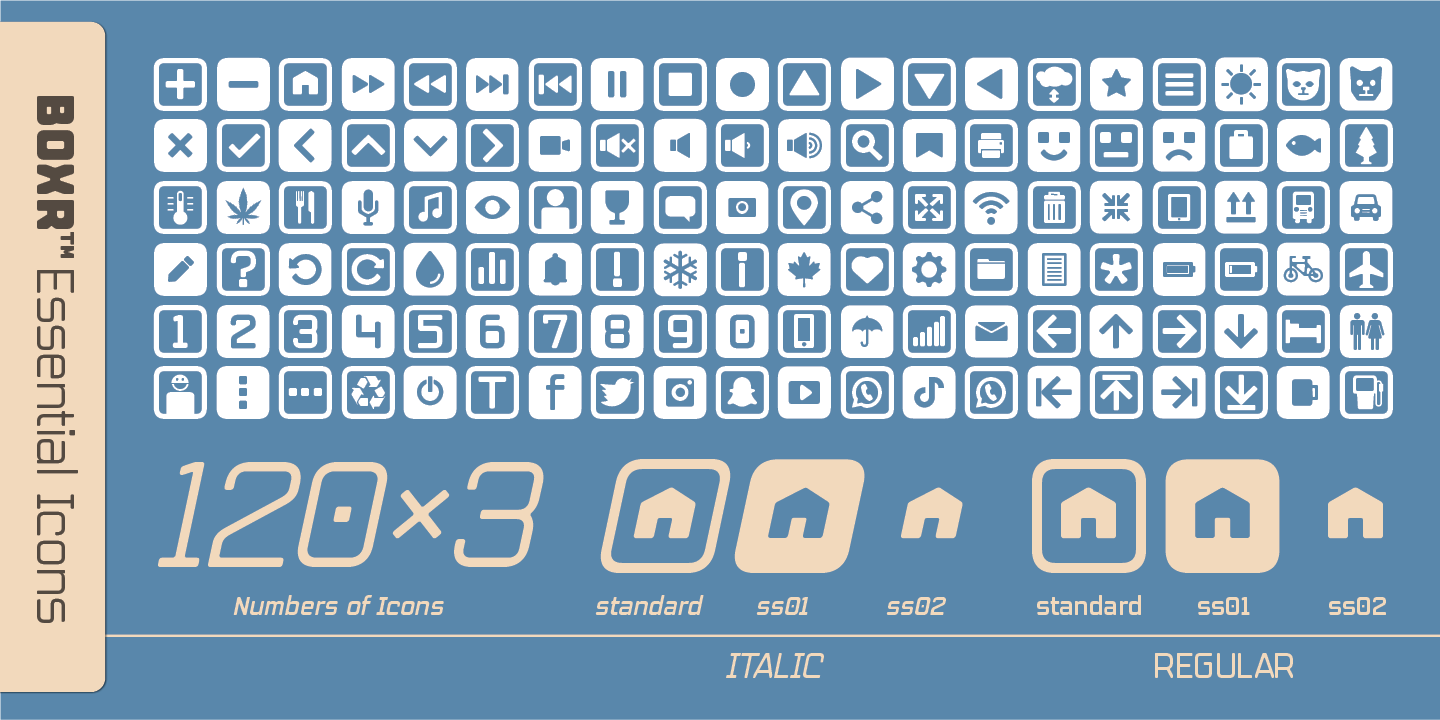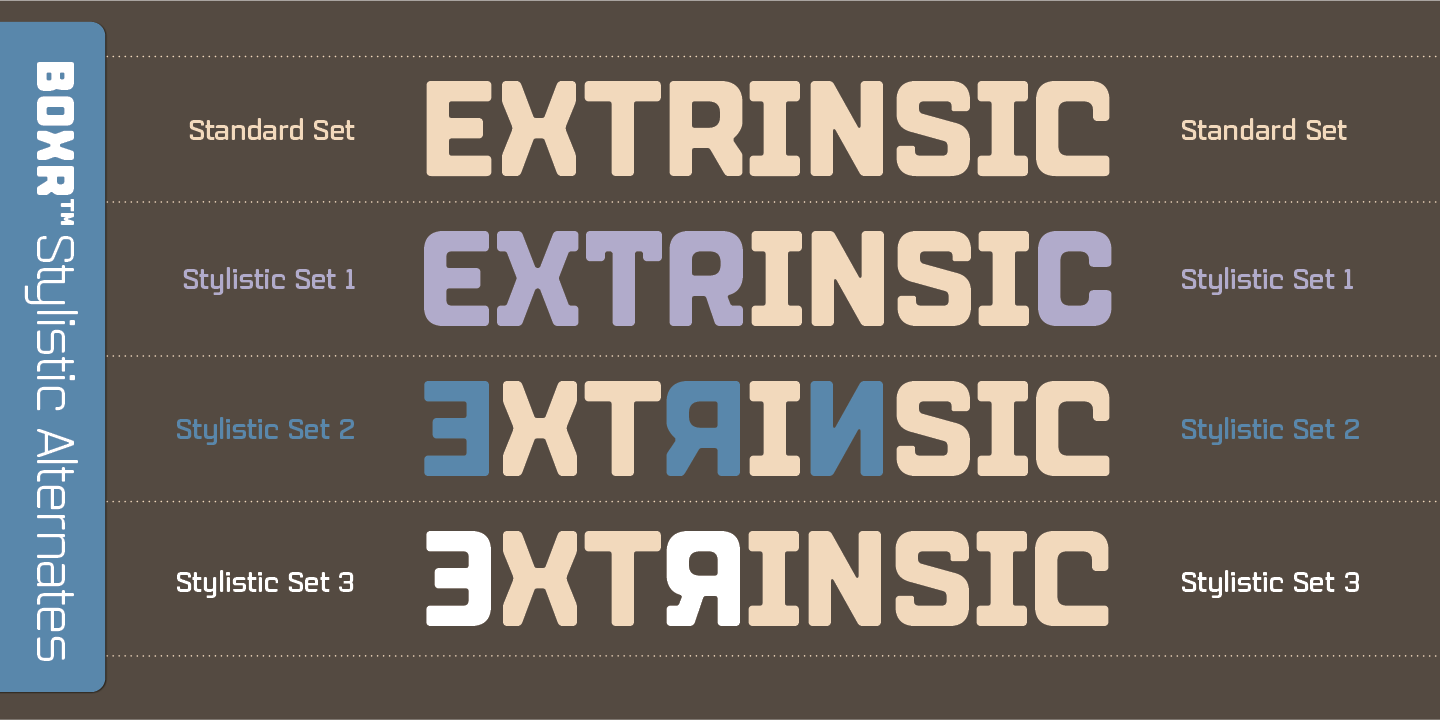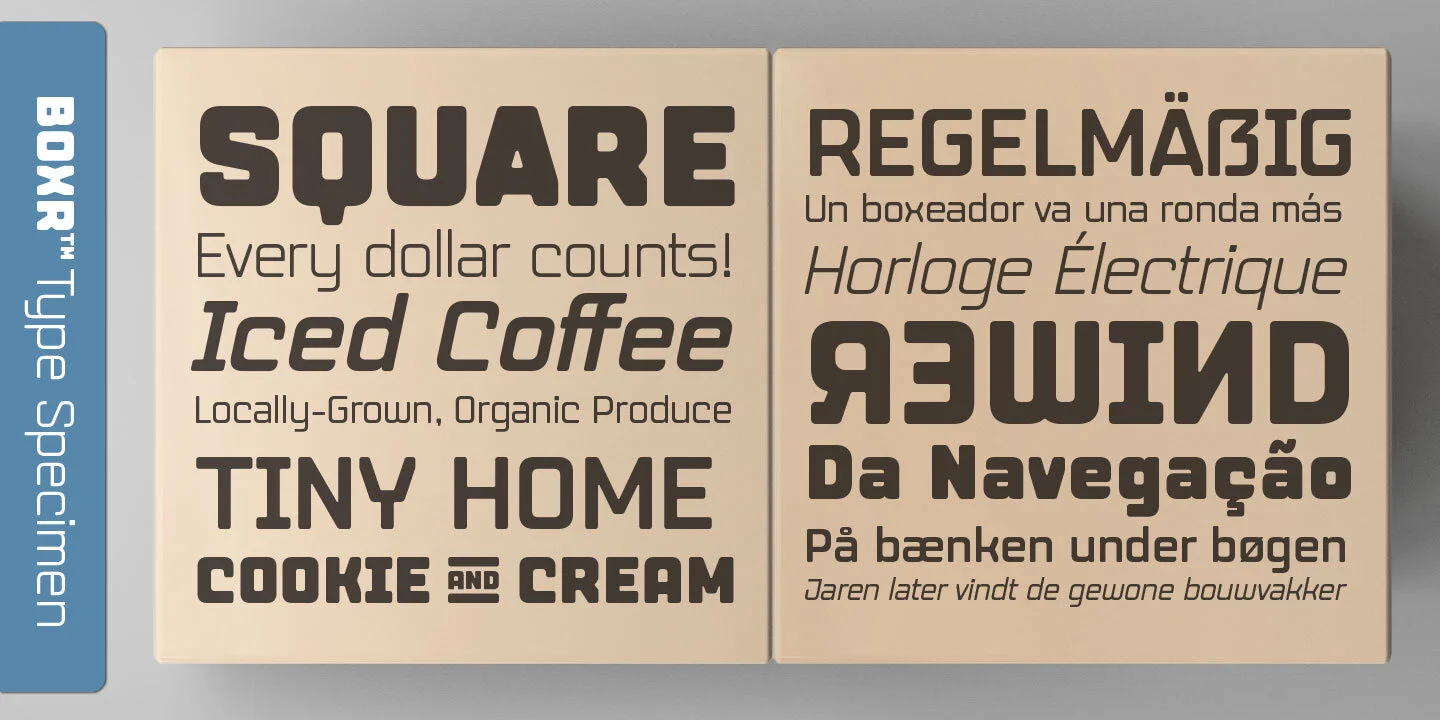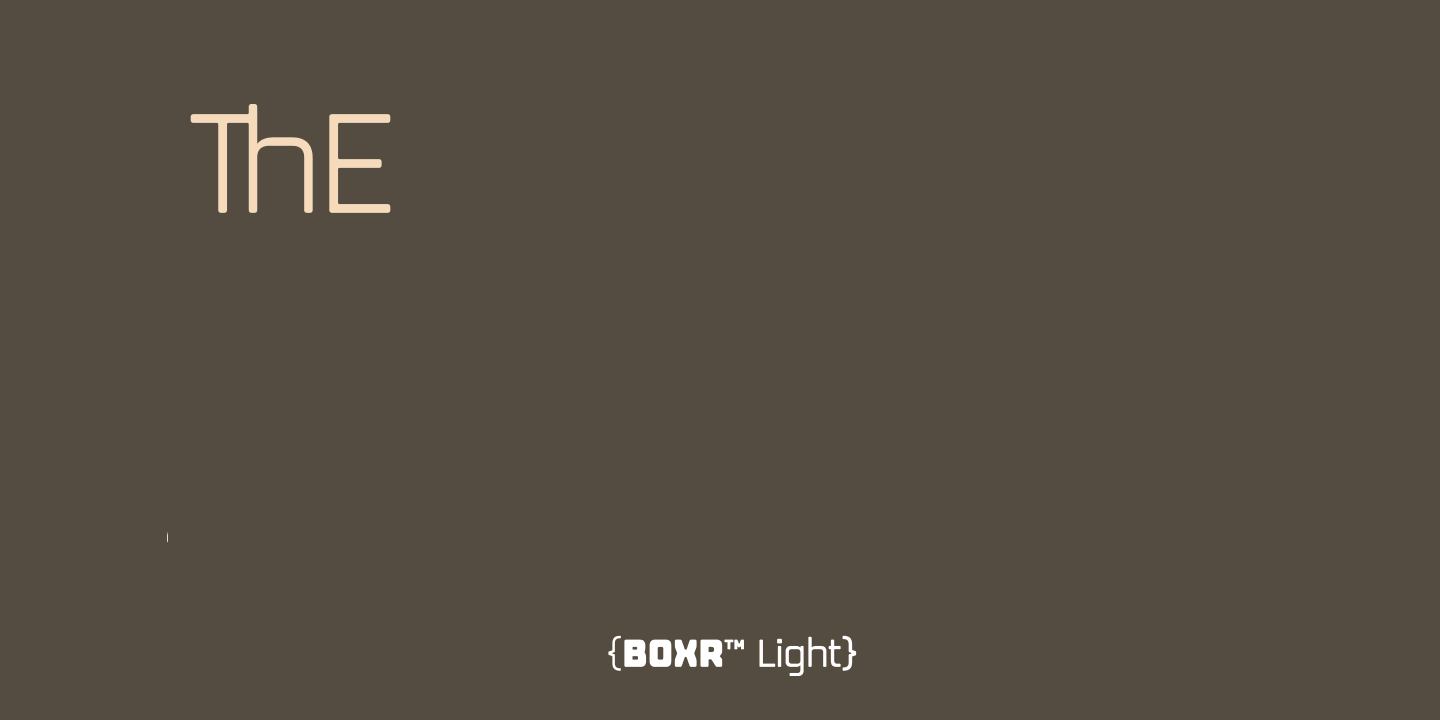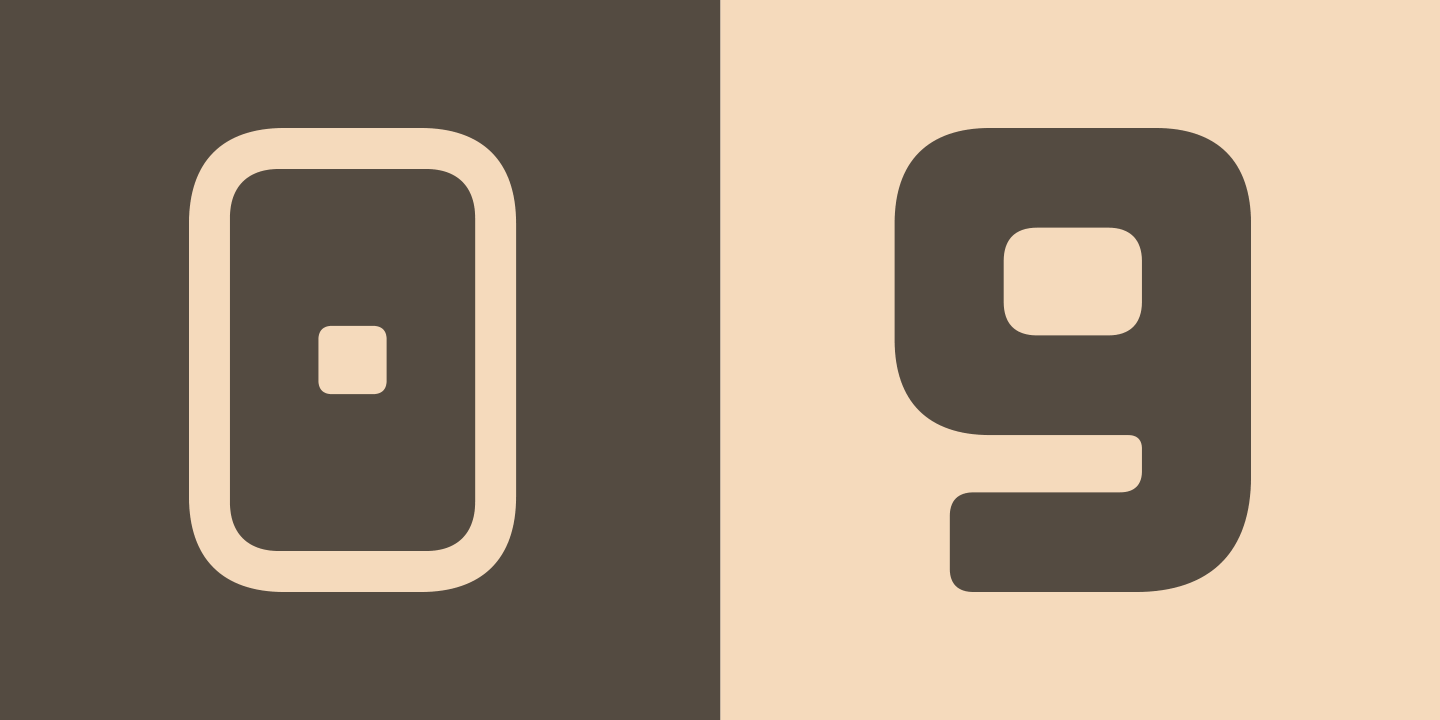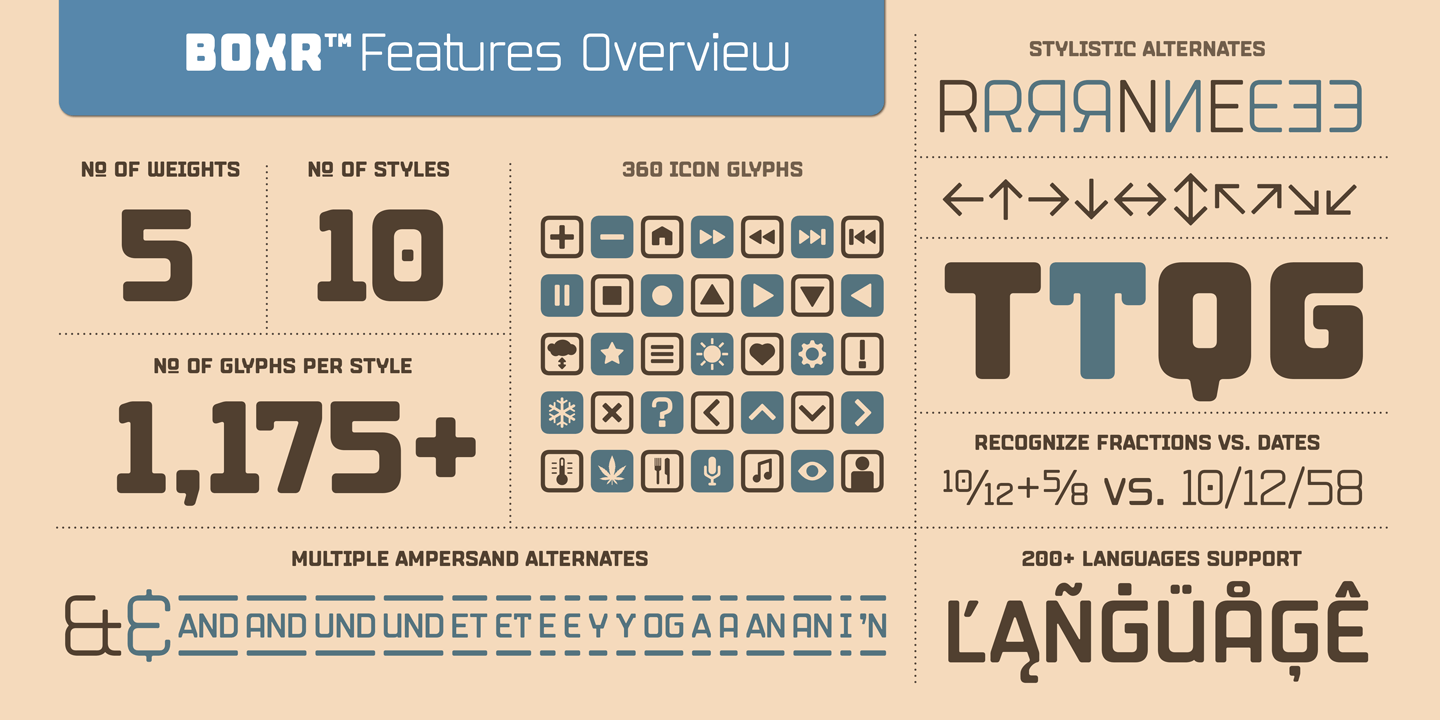
Boxr™ Font Features & Specimens
Boxr™: The Rectangular Sans Serif That’s Boxy and Beautiful
Large B, O, X, R characters printed on four separate, cardboard-colored boxes.
Named for its signature boxy, square shape, Boxr™ is a contemporary font family that we designed to be beautifully versatile. We started by crafting a strong, rectangular sans serif form and then applied a warm touch by softening all the sharp corners and connections. The result is a unique typeface that works as well for a clean, corporate project as it does for a friendly, casual one. It's an excellent choice for any of your print, packaging, editorial, and digital design projects.
Boxr font features overview showing 5 weights, 10 styles, and over 1,175 glyphs per style. Key features include a dedicated set of 360 geometric icon glyphs, multiple stylistic alternates, and extensive 200+ language support.
A Complete Toolkit for Your Designs
Boxr™ is a Canadian-crafted typeface that comes packed with everything you need to bring your projects to life. This versatile font family is available in 5 weights and 10 styles, with over 1,100 glyphs per style, and supports over 200 Latin-based languages.
It also comes with the following features to streamline your creative process:
• Extensive OpenType Features: Boxr™ is loaded with stylistic alternates, case-sensitive punctuations, ligatures, and smart recognition for both dates and fractions.
• 120+ UX/UI Icons: We’ve included 120 essential UX/UI icons, each available in three different stylistic options, so you don't need to go hunting for a separate icon font.
• Bonus Glyphs: We also included special backward R, N, and E glyphs for projects that call for a unique, exotic flair.
Detailed Boxr full character set showing Roman and Italic styles for uppercase, lowercase, numbers, punctuation, and a wide array of stylistic alternates. The image confirms support for fractions, currency symbols, and ligatures.
Detailed display of the 120 geometric Boxr UX/UI icon glyphs, available in 3 stylistic alternates for a total of 360 unique icon glyphs. The set includes social, navigation, and utility icons for flexible application design.
Typographic specimen of Boxr demonstrating the extensive ligature set, which includes essential standard ligatures (e.g., ff, ffi) and creative discretionary ligatures to enhance text readability and display quality.
Boxr font OpenType demonstration showing the 4 stylistic sets applied to 'EXTRINSIC', including mirrored and custom display glyphs.
Boxr symbol alternates showing multiple styles for currency (dollar, euro, yen, etc.) and math/diacritic marks, all designed to visually match the font's weight for typographic balance.
Boxr stylistic features showing 7 bullet point alternates and case-sensitive punctuation, which automatically adjusts symbol placement for superior typographic alignment in lists and sentences.
Boxr™ Type Specimen
Boxr font family specimen showing the 10 styles included in the pack, displayed on a geometric design packaging mock-up highlighting the unique rounded corners of the characters.
Animated Boxr specimen demonstrating the full set of lining, tabular numbers cycling 0–9 in two distinct weights, confirming uniform width and height for financial or data display.
Boxr type specimen showcasing its versatility in both English branding headlines and multiple European languages (including German, French, and Dutch), demonstrating strong Latin Extended support for display typography.
Animated GIF of the 'Quick Brown Fox' pangram cycling through the 5 Roman weights of Boxr. The specimen shows smooth weight progression and the seamless integration of dog icon glyphs within the text.
Boxr website UI specimen comparing the Standard set on 'INHALE' and a Stylistic Alternate set on 'EXHALE'. The image demonstrates flexible OpenType features for creating custom, split-style headlines in branding.
Boxr editorial design specimen showing a magazine spread. The image demonstrates the font's legibility in body text (Light weight) and its powerful impact as a bold, geometric headline typeface for long-form content and magazines.
Animated Boxr specimen showing the German pangram in Italic weights. The specimen confirms extensive Central European language support, showcasing accurate geometric rendering of umlauts and the eszett symbol.
Boxr typographic specimen demonstrating the font's versatility: bold, large-scale headline type layered with readable, small-scale body text, proving legibility across extreme size ranges.
Boxr packaging design specimen on a Gastown egg carton. The font is used for branding and product labeling, demonstrating legibility on an imperfect surface, multilingual support, and integrated Canada Maple Leaf icon glyph.